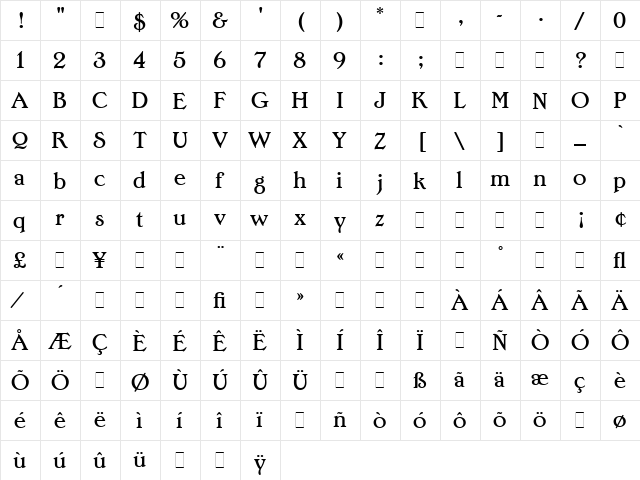
Edwardian Medium LET Regular
Design Context for Edwardian Medium LET Typeface
Edwardian Medium LET is a composed and adaptable typeface that performs quietly and consistently across a wide range of design contexts.
Pro Tip: Use Edwardian Medium LET in both headline and body roles to test its range before committing to a single application.